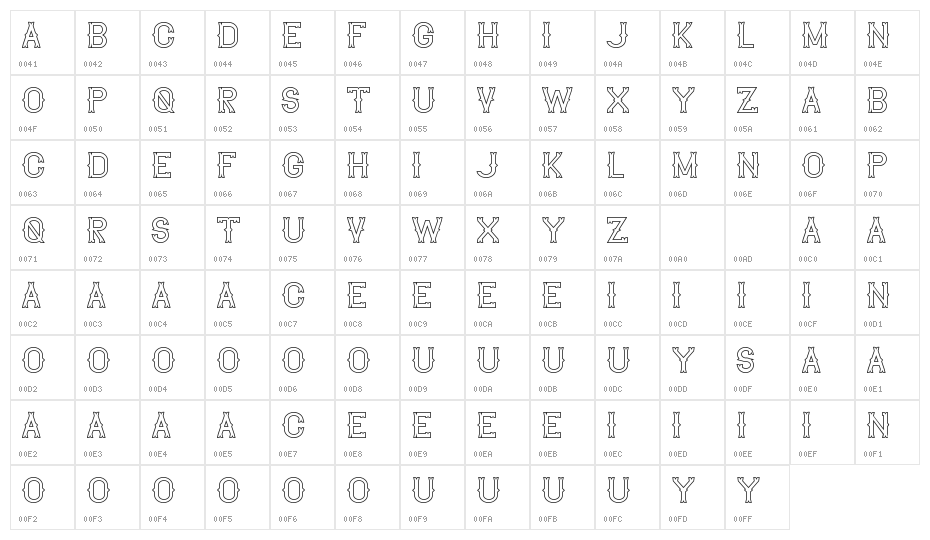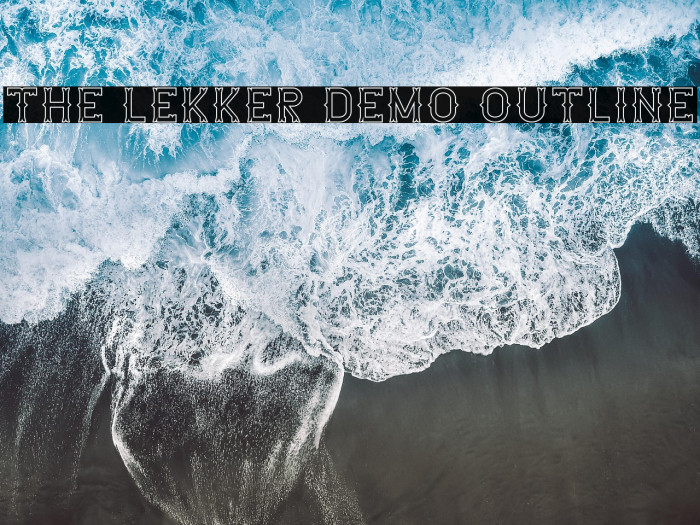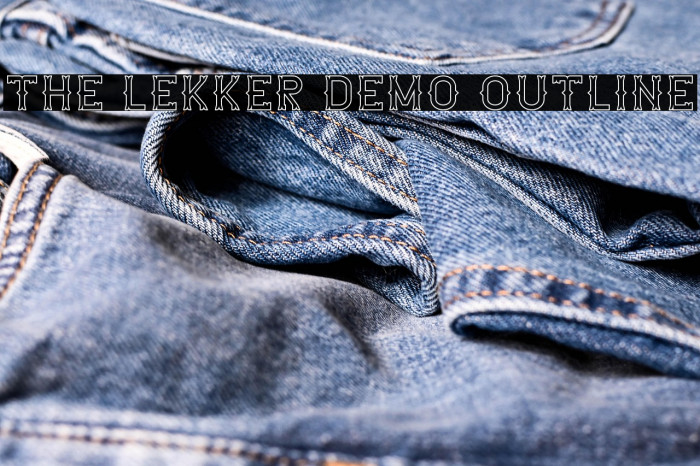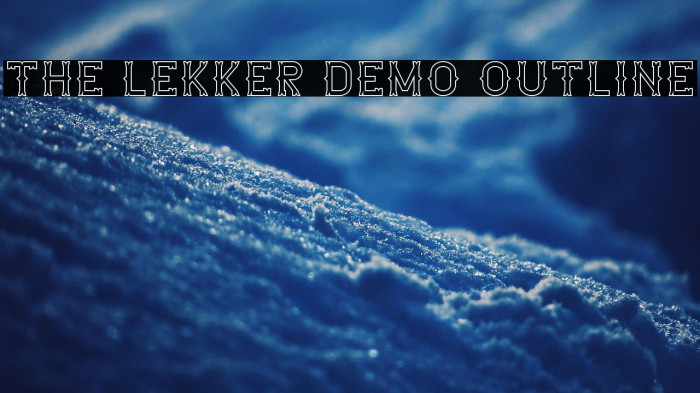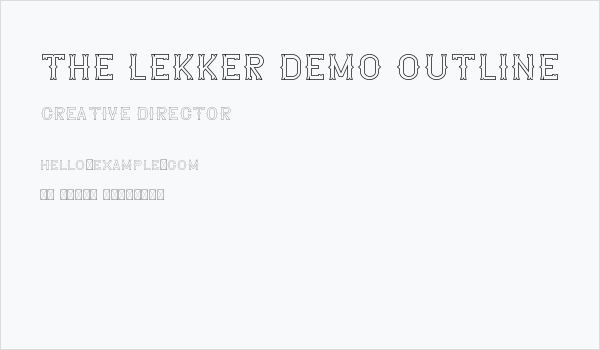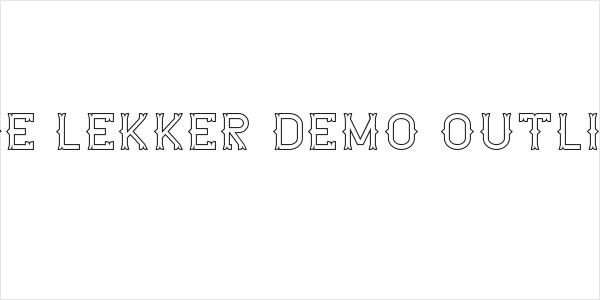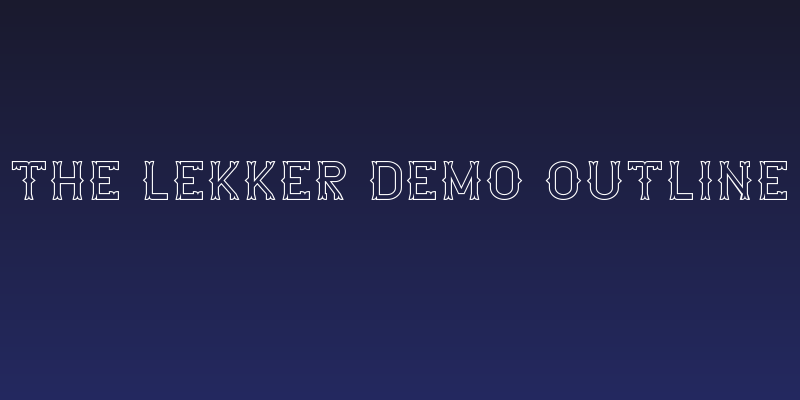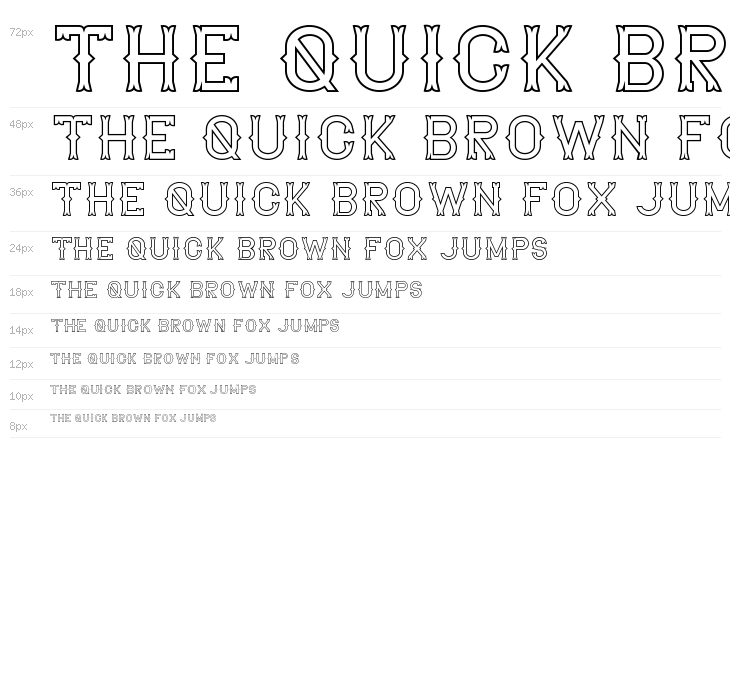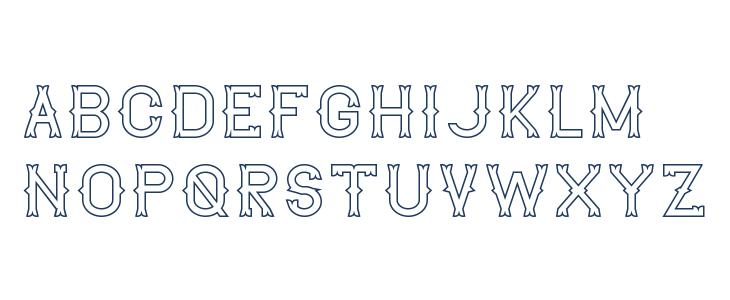
The Lekker DEMO Outline Font
The Lekker DEMO Outline Description
This font features a bold, outlined style with a modern and decorative flair. The characters are uppercase, with a geometric and structured appearance, giving them a distinct and eye-catching look. The outlines are consistent in thickness, providing a uniform and cohesive design. The font's style is reminiscent of architectural or industrial design, with sharp angles and clean lines. It is well-suited for creating impactful headlines or titles that demand attention. The spacing between characters is normal, ensuring readability while maintaining its bold aesthetic.
| Proposed Projects | This font is perfect for branding projects, poster designs, and any creative work that requires a strong visual impact. It can be used effectively in digital media, advertisements, and packaging design. |